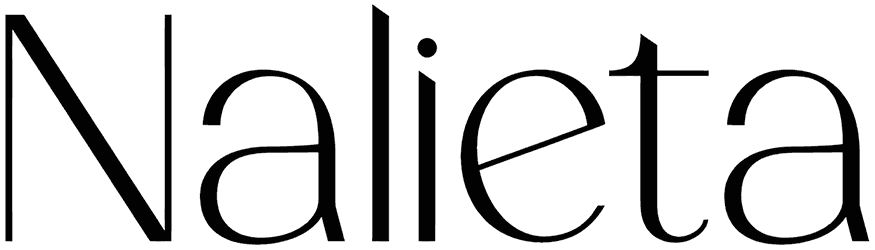
Nalieta Font
For designers who are tired of the repeated use of very decorative things and are interested in creating a new perspective, Nalieta is an ideal proposal. This sans-serif font is perfect for branding, logo design, posters, advertisements, and websites, and will be attractive enough to attract the audience.
Although the lack of numbers may seem like a lack at first glance, the inherent simplicity of this font can add a new level of fun to your projects.